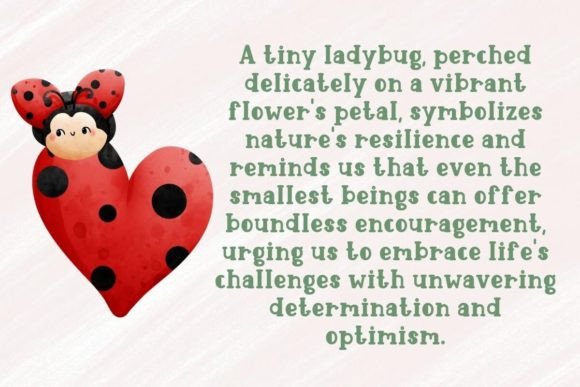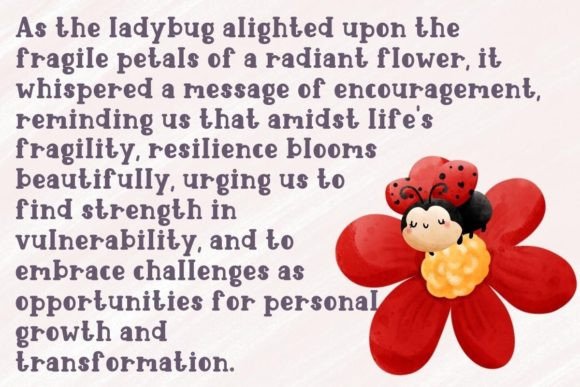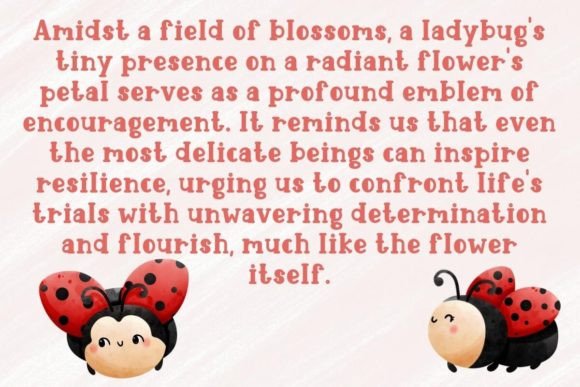
Cute Ladybug Font: Add a Touch of Joy to Your Designs
Are you a designer or crafter looking for a font that can add a playful and whimsical touch to your creations? Look no further than the Cute Ladybug Font! This beautiful handwritten font is sure to bring a smile to your face and make your designs stand out.
What is Cute Ladybug Font?
Cute Ladybug is a very beautiful and cute handwritten font, designed to add an incredibly joyful touch to your designs. Its playful and charming letters are perfect for a variety of projects, from crafting and scrapbooking to digital art and graphic design.
Features of Cute Ladybug Font
- Handwritten with love: Cute Ladybug Font is a carefully crafted handwritten font, with each letter written with love and attention to detail.
- Playful and whimsical: The font’s playful and whimsical design makes it perfect for projects that require a touch of fun and personality.
- Versatile: Cute Ladybug Font can be used for a wide range of projects, from digital art and graphic design to crafting and scrapbooking.
- Easily readable: Despite its playful design, Cute Ladybug Font is easily readable, making it perfect for use in titles, headings, and body text.
Tips for Using Cute Ladybug Font
- Pair it with bold fonts: Cute Ladybug Font pairs perfectly with bold fonts, creating a beautiful contrast that makes your designs stand out.
- Use it for titles and headings: The playful design of Cute Ladybug Font makes it perfect for use in titles and headings, adding a touch of fun and personality to your designs.
- Experiment with colors: Cute Ladybug Font looks great in a variety of colors, so don’t be afraid to experiment and find the perfect color for your design.
Benefits of Using Cute Ladybug Font
So why should you use Cute Ladybug Font in your designs? Here are just a few benefits:
- Adds a touch of joy: Cute Ladybug Font is sure to bring a smile to your face and add a touch of joy to your designs.
- Makes designs stand out: The playful and whimsical design of Cute Ladybug Font makes it perfect for designs that need to stand out from the crowd.
- Perfect for crafty projects: Cute Ladybug Font is a great choice for crafty projects, such as scrapbooking and crafting, where a personal touch is desired.
| Font Name | Cute Ladybug Font |
| Author | charmingbear59.design |
In conclusion, Cute Ladybug Font is a beautiful and versatile handwritten font that can add a touch of joy and personality to your designs. Its playful and whimsical design makes it perfect for a wide range of projects, from digital art and graphic design to crafting and scrapbooking. So why not give it a try and see how it can make your designs stand out?